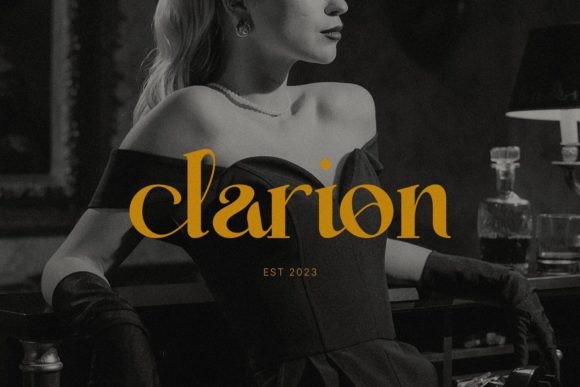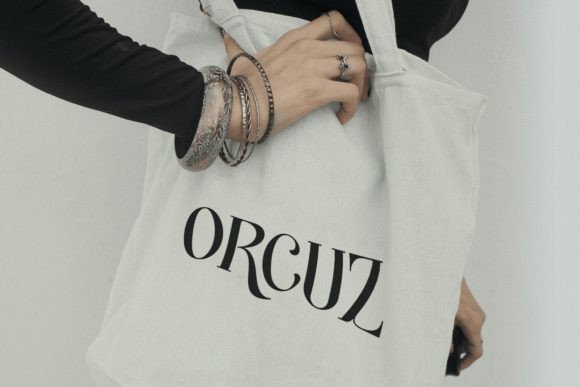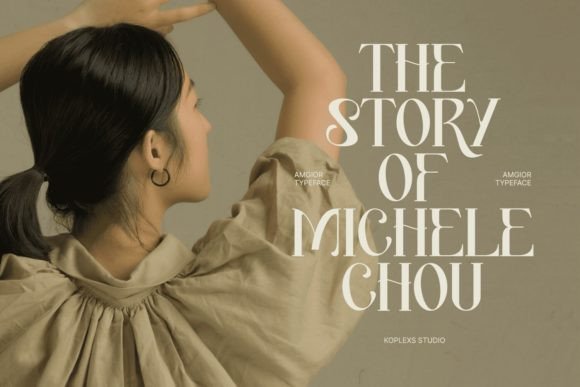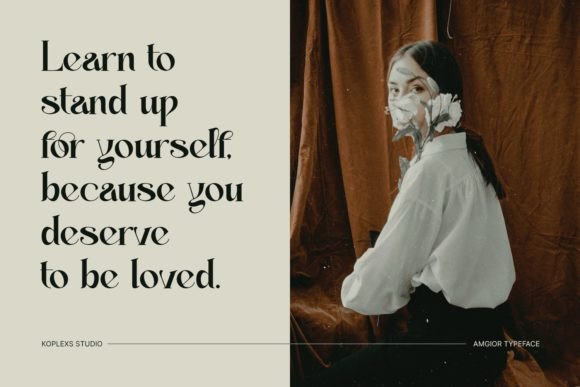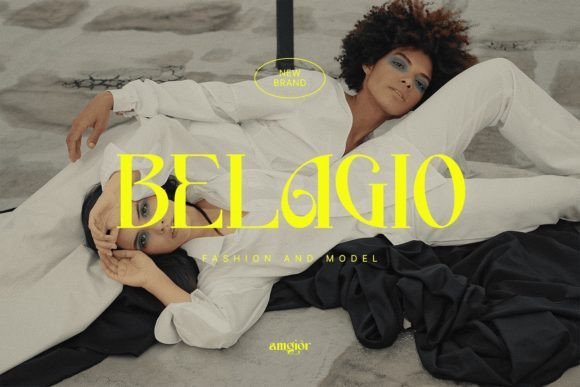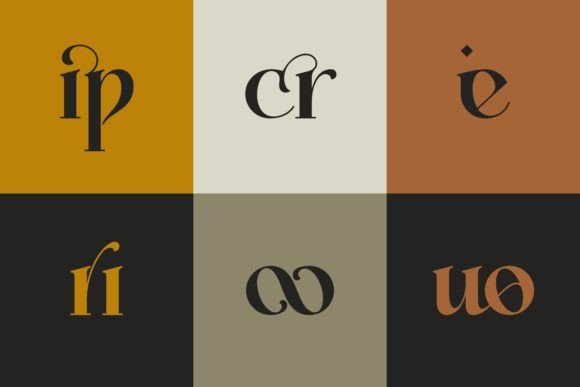
Introducing Amgior Font: Elevate Your Designs with Elegance and Versatility
In the world of typography, a font can make or break a design. It’s the foundation upon which the entire visual aesthetic is built. For designers and crafters seeking a font that embodies elegance, versatility, and modernity, Amgior Font is an exceptional choice. This multipurpose font is designed to cater to a wide array of projects, from editorial designs to digital content, and everything in between.
What Makes Amgior Font Stand Out?
Amgior Font is characterized by its high-contrast glyphs, which lend it an air of sophistication and readability. Whether you’re aiming for an elegant and feminine look or a bold and masculine appearance, Amgior adapts seamlessly to your design needs. Its modern serif design ensures that your text is not only visually appealing but also easy to read, making it perfect for body copy and display text alike.
Unique Features of Amgior Font
- High-Contrast Glyphs: These give Amgior its distinctive elegant look, suitable for a variety of design projects.
- Ligature: Equipped with a unique ligature feature, Amgior allows you to add a personal touch to your designs, making them stand out.
- OpenType Features: With OpenType features, Amgior offers extended typographic capabilities, making it versatile for professional use.
- Multipurpose: From headings and logos to magazines, product packaging, and digital content, Amgior is versatile enough to be used across different mediums.
Applications of Amgior Font
The versatility of Amgior Font makes it suitable for a myriad of applications. Here are some of the ways you can utilize this elegant font:
- Display for Headings: Use Amgior to create compelling headings and titles that capture attention.
- Logos and Branding: Its unique and modern look makes it perfect for logos and overall branding strategies.
- Magazines and Blogs: For editorial designs, Amgior offers the elegance and readability needed for articles and content.
- Product Packaging: Elevate your product packaging with Amgior’s distinctive and sophisticated look.
- Invitations and Quotes: Whether it’s for special occasions or highlighting important statements, Amgior adds a touch of class.
Why Choose Amgior Font?
Choosing a font for your project can be overwhelming, given the numerous options available. However, Amgior Font stands out for several reasons:
- Ease of Use: Amgior is designed to be user-friendly, making it accessible even for those with basic design knowledge.
- Modern Aesthetic: Its modern serif design is both timeless and trendy, fitting well with current design trends.
- Customization: With features like ligatures and OpenType features, Amgior offers a level of customization that can make your designs truly unique.
Amgior Font is more than just a typeface; it’s a design tool that can elevate your projects to new heights. Its combination of elegance, versatility, and modernity makes it an invaluable asset for designers and crafters looking to make a statement. Whether you’re working on a branding project, editorial content, or digital media, Amgior is equipped to add that extra layer of sophistication and professionalism you’re aiming for. With its wide range of applications and user-friendly features, Amgior Font is poised to become a staple in your design arsenal.
Embrace the world of high-contrast elegance and versatility with Amgior Font. Discover the difference it can make in your designs today.